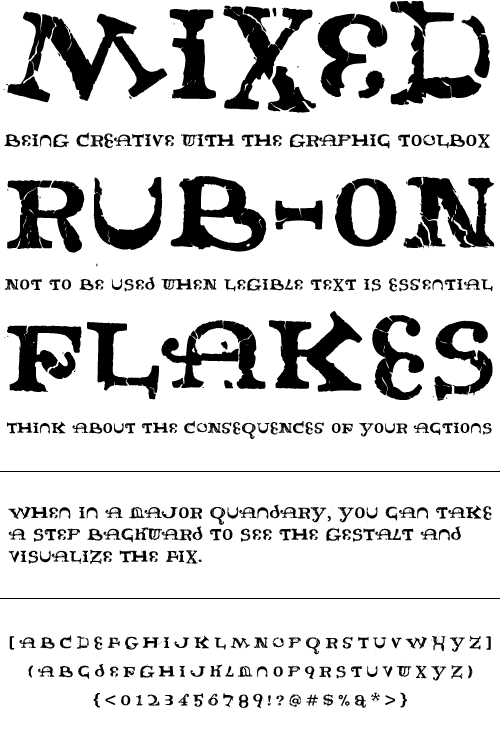
Rubba
Rubba was created using rub-on type to mix and match pieces of letters that did not belong together. The result is a broken up frankenstein of a font.
Year Designed:
1997
Weights:
Regular